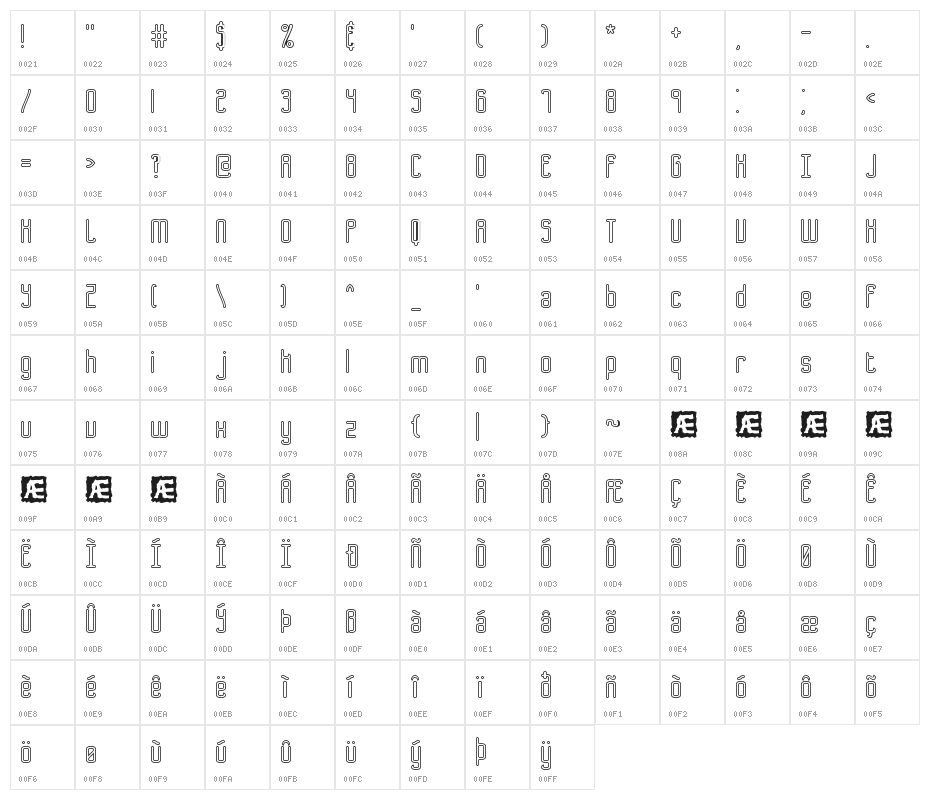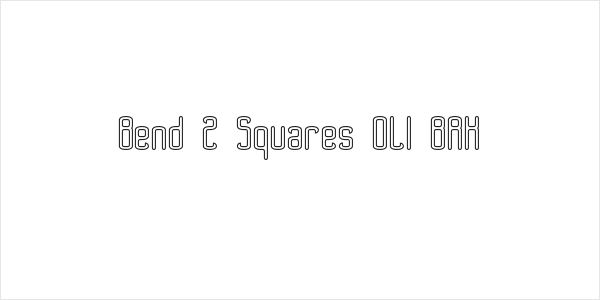
Bend 2 Squares OL1 BRK Font
Bend 2 Squares OL1 BRK Description
This font features a unique, outlined design with a geometric and modern aesthetic. Each character is crafted with a double-line structure, creating a hollow effect that adds depth and dimension. The uppercase and lowercase letters maintain a consistent style, with rounded edges and uniform line thickness. The numerals and special characters follow the same design principles, ensuring a cohesive look across all elements. This font's distinct appearance makes it ideal for eye-catching designs that require a contemporary and stylish touch.